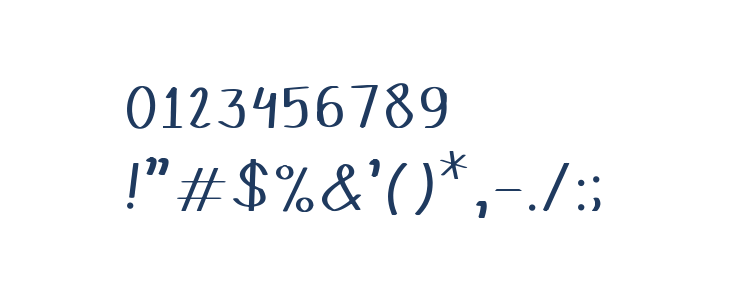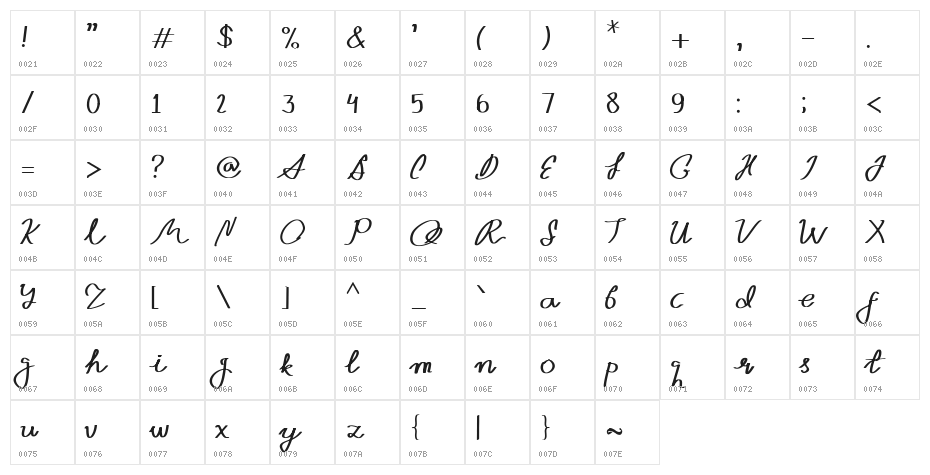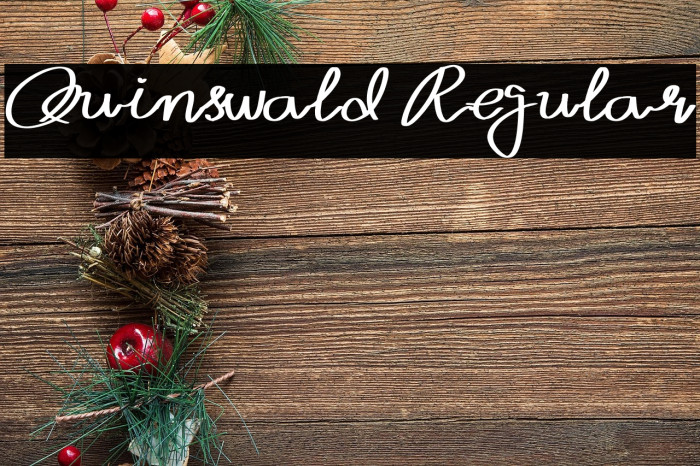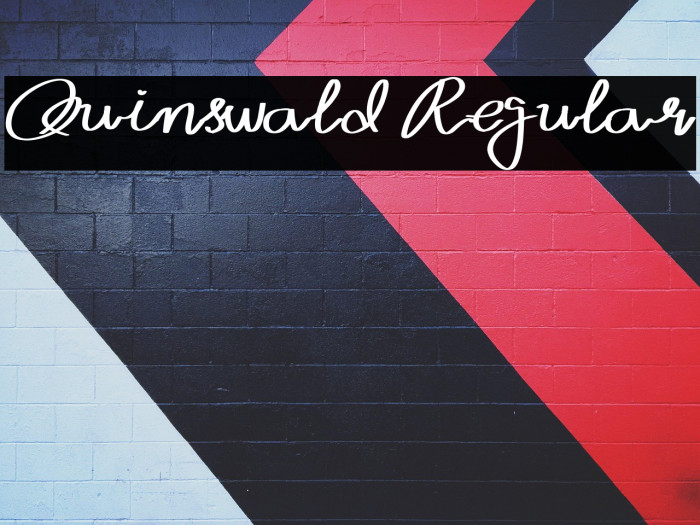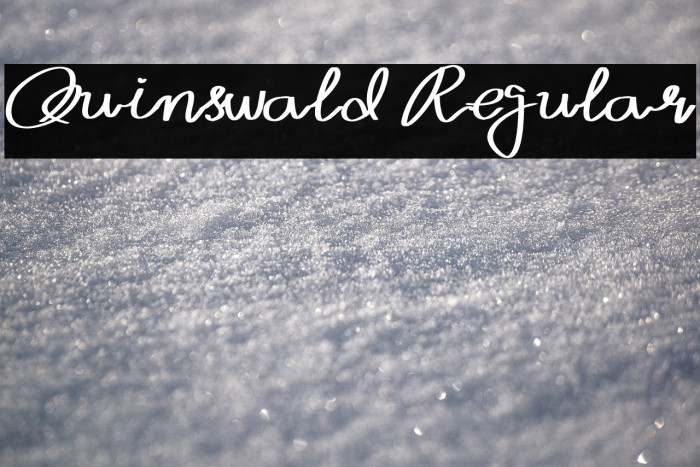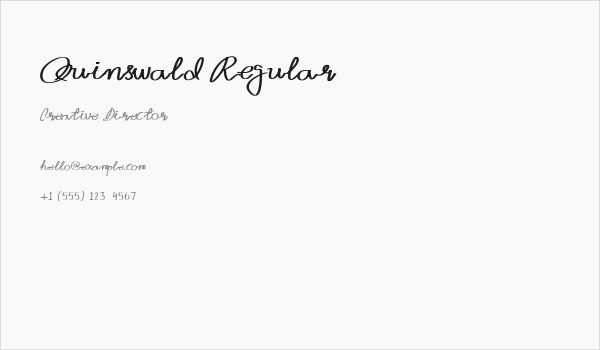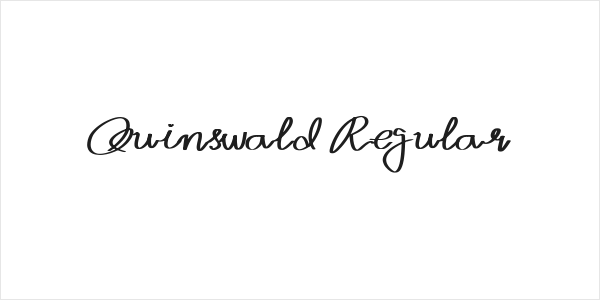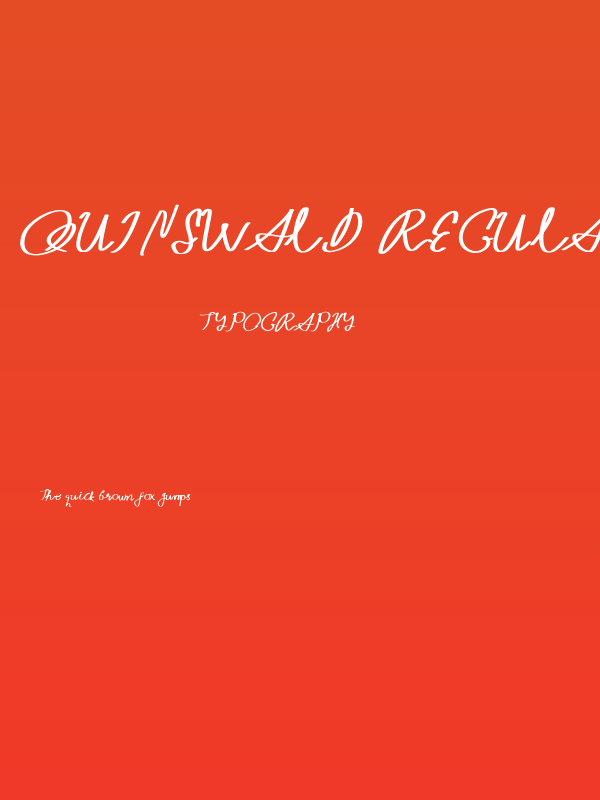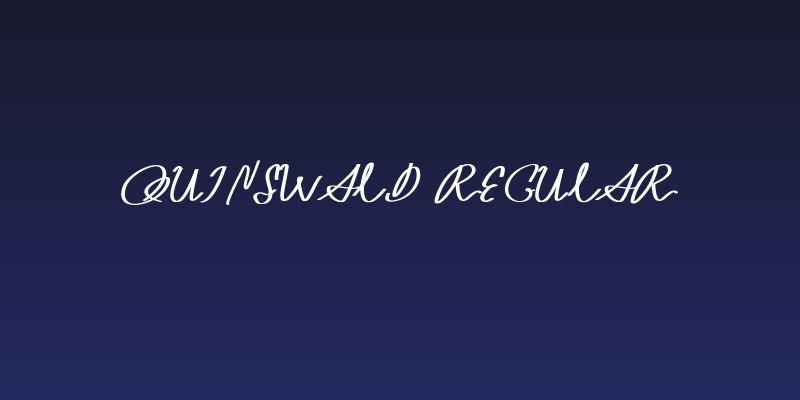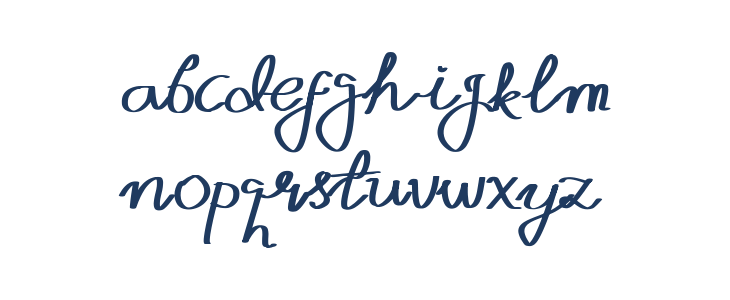
Quinswald Regular Font
Quinswald Regular Description
This font exhibits a flowing, cursive style with a handwritten appearance. The uppercase letters are elegantly connected, giving a sense of continuity and fluidity. The lowercase letters maintain a consistent slant, enhancing the script-like quality. Numbers are clear and maintain the same stylistic flow as the letters. Special characters are integrated seamlessly, maintaining the overall aesthetic. The strokes vary in thickness, providing a dynamic and lively feel. This font is both expressive and legible, making it suitable for creative and personal projects.
| Proposed Projects | Ideal for wedding invitations, greeting cards, personal branding, and artistic projects. |